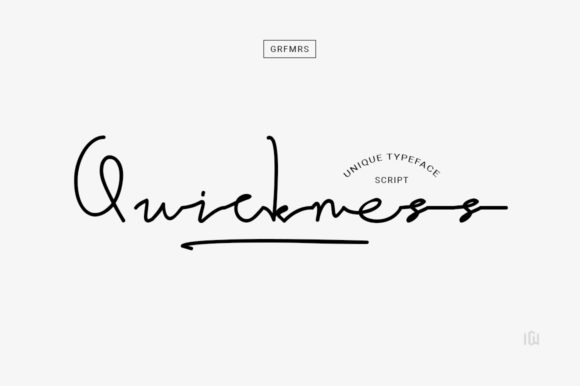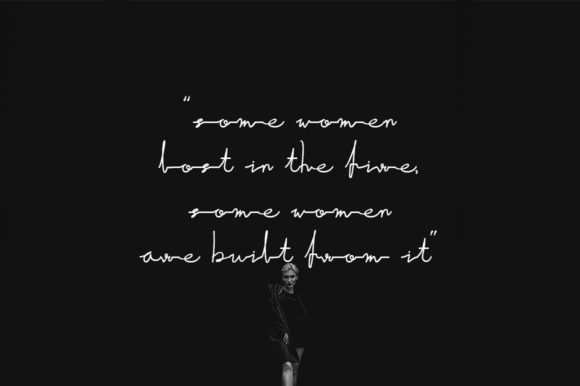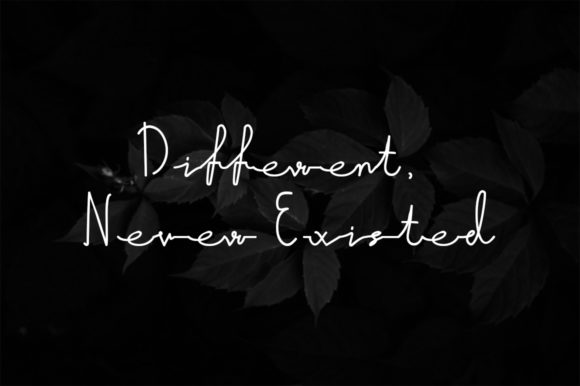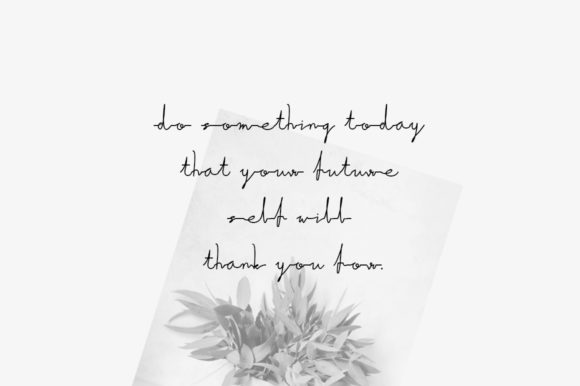
About Quickness Font
Quickness is an exquisite handwritten font, masterfully designed to become a true favorite. It maintains its classy calligraphic influences while feeling contemporary and fresh. Fall in love with it and bring your projects to the highest levels!